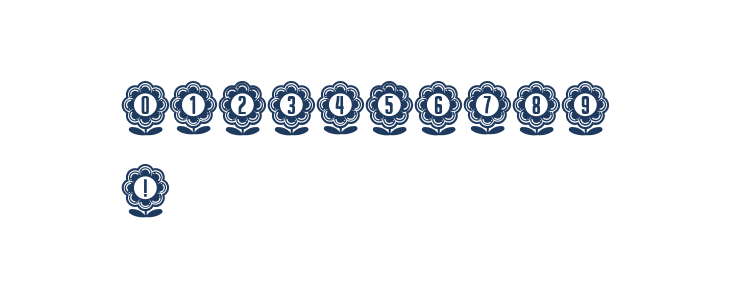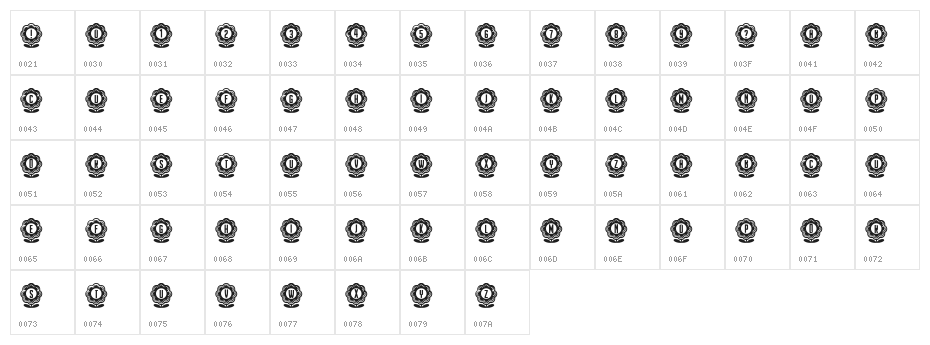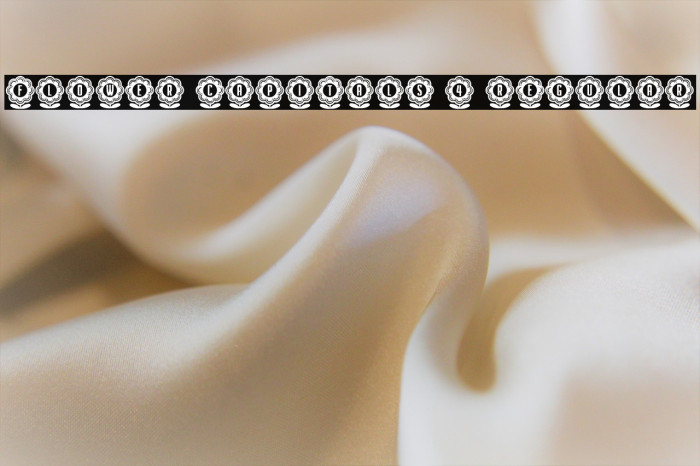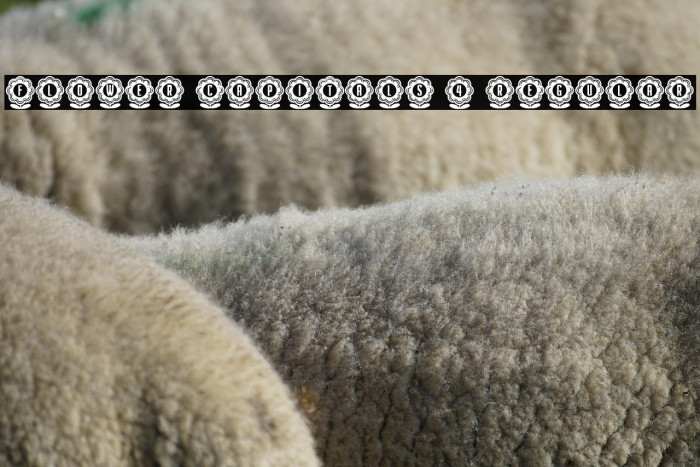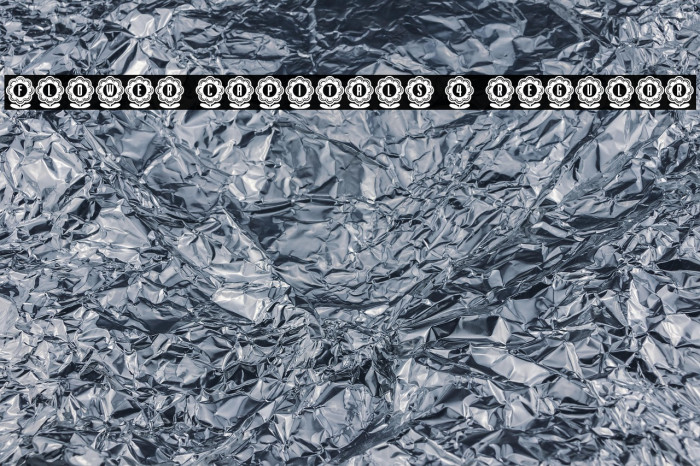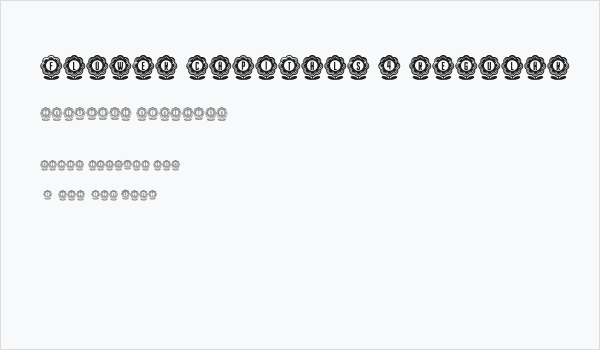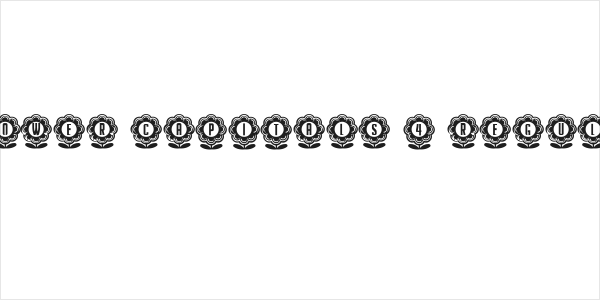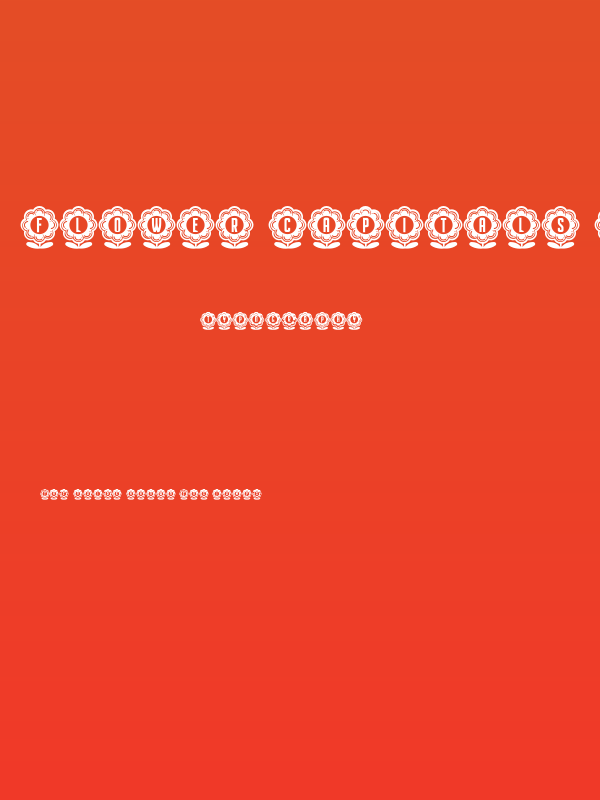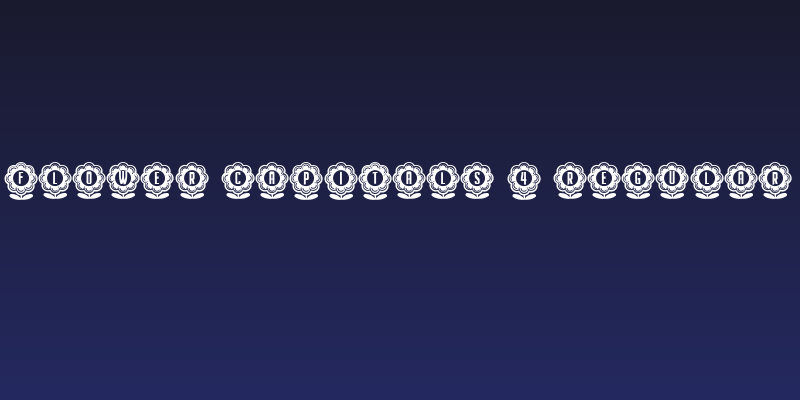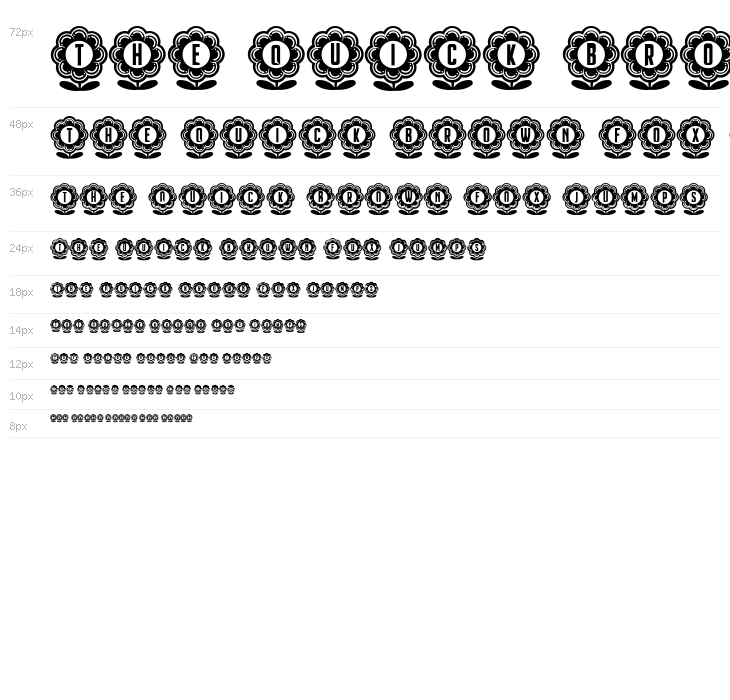
Flower Capitals 4 Regular Font
Flower Capitals 4 Regular Description
This decorative font features characters encased within stylized flower shapes, creating a whimsical and playful aesthetic. Each letter and number is centered within a bold, symmetrical floral design, making it stand out with a unique charm. The font combines a sense of nature with a bold, graphic style, making it ideal for creative and artistic projects. The consistent use of floral motifs around each character gives it a cohesive and thematic appearance, perfect for designs that require a touch of elegance and creativity.
| Use Case | Logos, Headlines, Artistic designs |
| Proposed Projects | Ideal for greeting cards, invitations, children's books, and creative branding projects. |